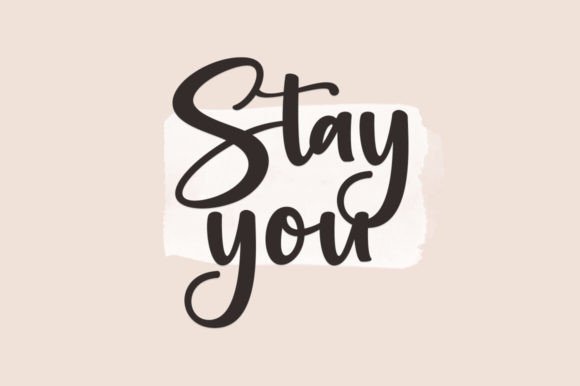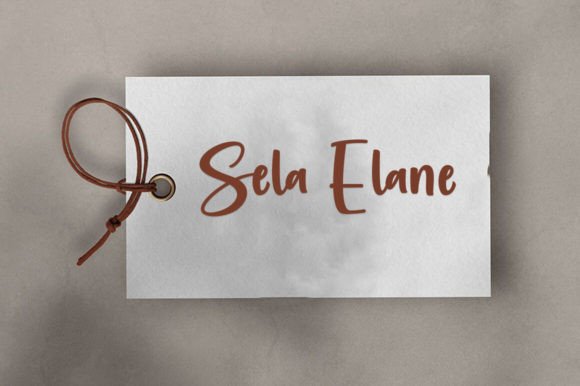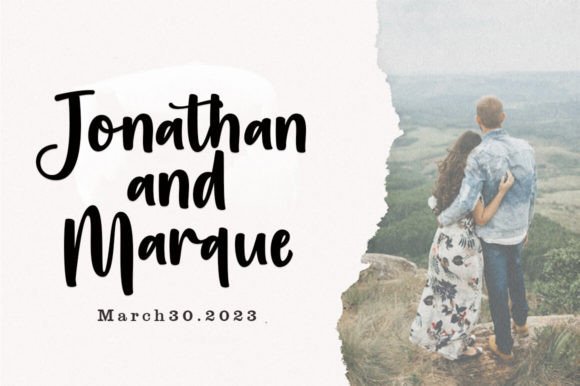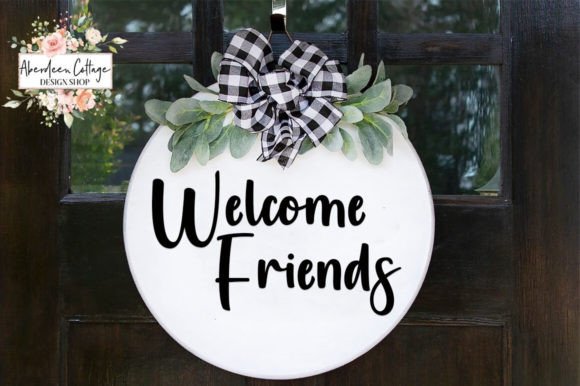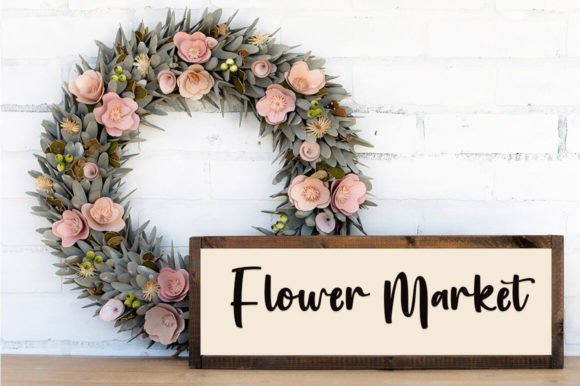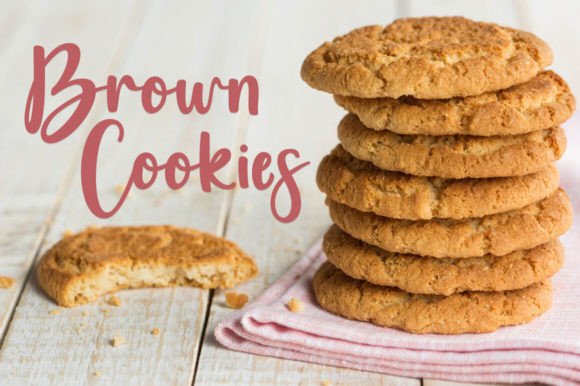
Introducing Castella Font: Elevate Your Designs with Timeless Elegance
In the world of typography, fonts play a crucial role in conveying the tone and personality of a design. For those seeking a touch of sophistication and classic charm, the Castella Font is an excellent choice. This trendy handwritten font boasts a contemporary atmosphere while drawing inspiration from timeless classic calligraphy, making it perfect for designers and crafters looking to add elegance and class to their projects.
The Essence of Castella Font
Castella Font is a meticulously crafted typeface that embodies the perfect blend of modernity and tradition. Its unique, handwritten style is characterized by impeccable form, fluid strokes, and a distinct sense of movement. This font is not just a tool for communication; it’s an artistic statement that can elevate your designs to new heights.
Key Features of Castella Font
- Trendy and Contemporary: Despite its classic inspiration, Castella Font carries a modern vibe that fits well with current design trends.
- Handwritten with Precision: The font’s handwritten nature gives it a personal touch, while its precise and clean lines maintain a level of sophistication.
- Elegance and Versatility: Castella Font is incredibly versatile, making it suitable for a wide range of design projects, from luxury branding to elegant stationery.
- Impeccable Form: Inspired by classic calligraphy, the font maintains a high level of typographic excellence, ensuring your designs look polished and professional.
Applications of Castella Font
The versatility of Castella Font makes it an invaluable asset for various design projects. Here are some of the areas where this font truly shines:
- Branding and Logo Design: For businesses aiming to convey a sense of luxury, elegance, and tradition, Castella Font can be a pivotal element in their brand identity.
- Stationery and Invitations: Add a touch of class to your wedding invitations, business cards, and letterheads with this sophisticated font.
- Packaging Design: For high-end products, the font can be used to create labels and packaging that reflect a premium quality.
- Digital Media: Whether it’s a website header, social media graphics, or digital advertising, Castella Font can help create visually appealing and engaging content.
Tips for Using Castella Font Effectively
To maximize the impact of Castella Font in your designs, consider the following tips:
- Pair it with Simplicity: Let the font be the focal point by pairing it with simple backgrounds or design elements.
- Experiment with Sizes: Play with different sizes to create visual hierarchy and emphasize key messages.
- Limit Your Palette: Stick to a limited color palette that complements the elegance of the font, often neutrals or a single bold color.
- Maintain Readability: Ensure that the font remains readable, especially in digital formats or when used for body text.
Castella Font stands out as a remarkable typeface that bridges the gap between classic calligraphy and modern design trends. Its elegance, versatility, and impeccable form make it a valuable tool for designers and crafters aiming to infuse their projects with a sense of sophistication and class. Whether you’re working on branding, stationery, or digital media, Castella Font is poised to elevate your designs and leave a lasting impression.
Incorporate Castella Font into your design arsenal and discover how this beautiful, handwritten typeface can transform your work into timeless pieces of art.